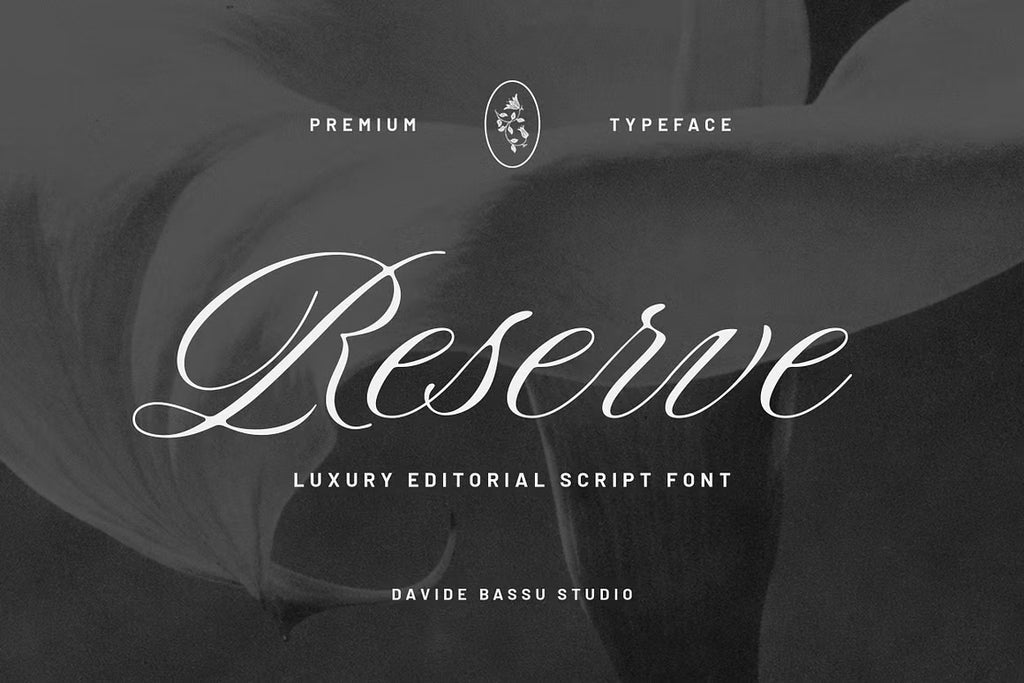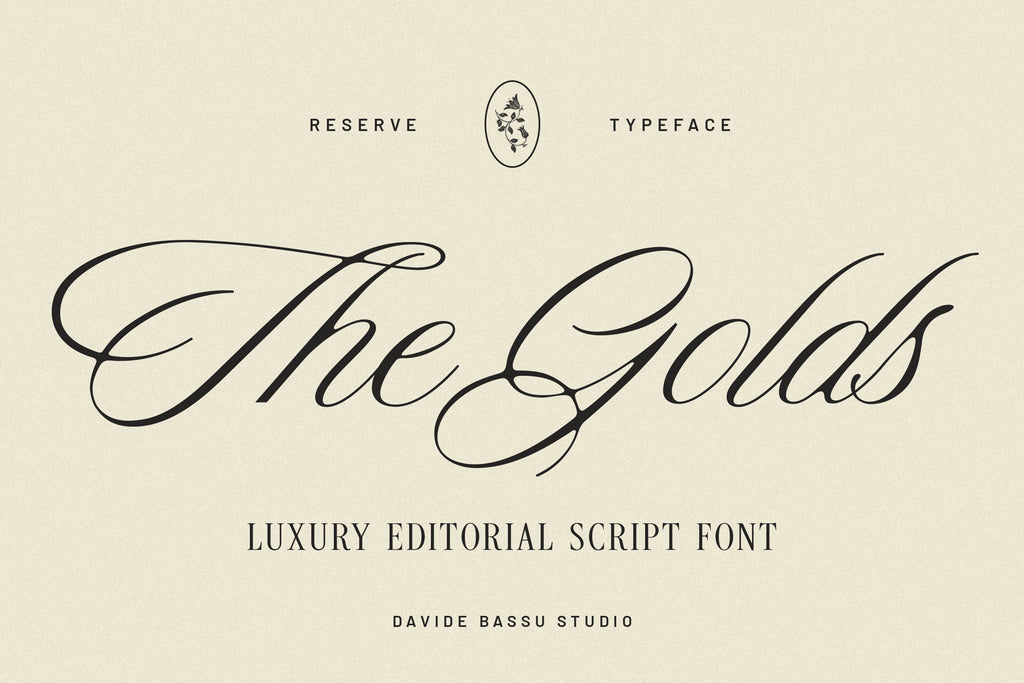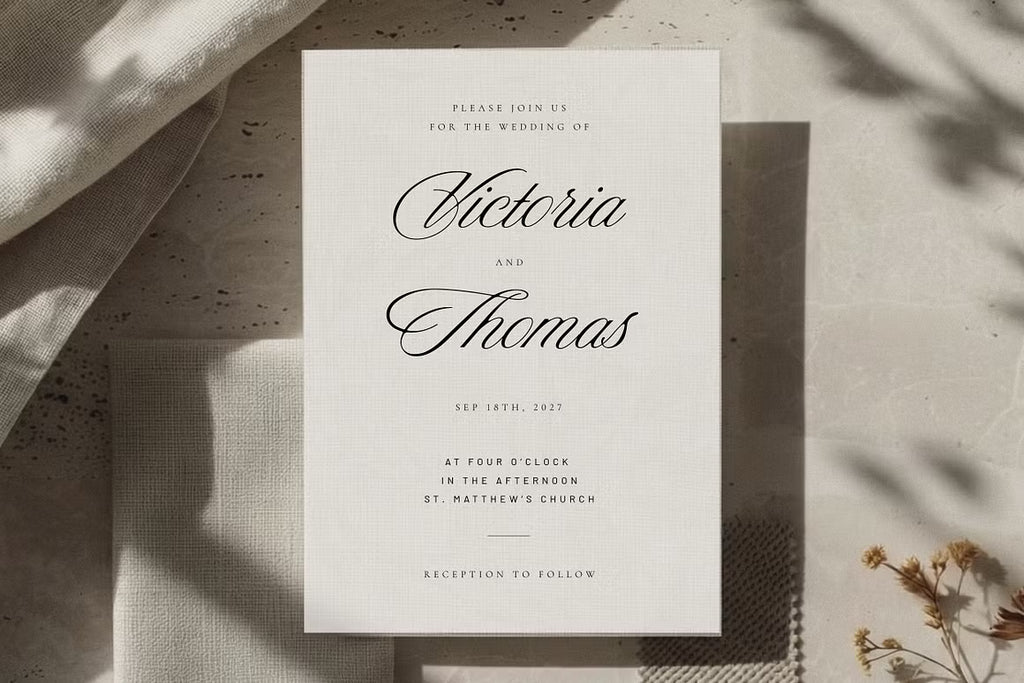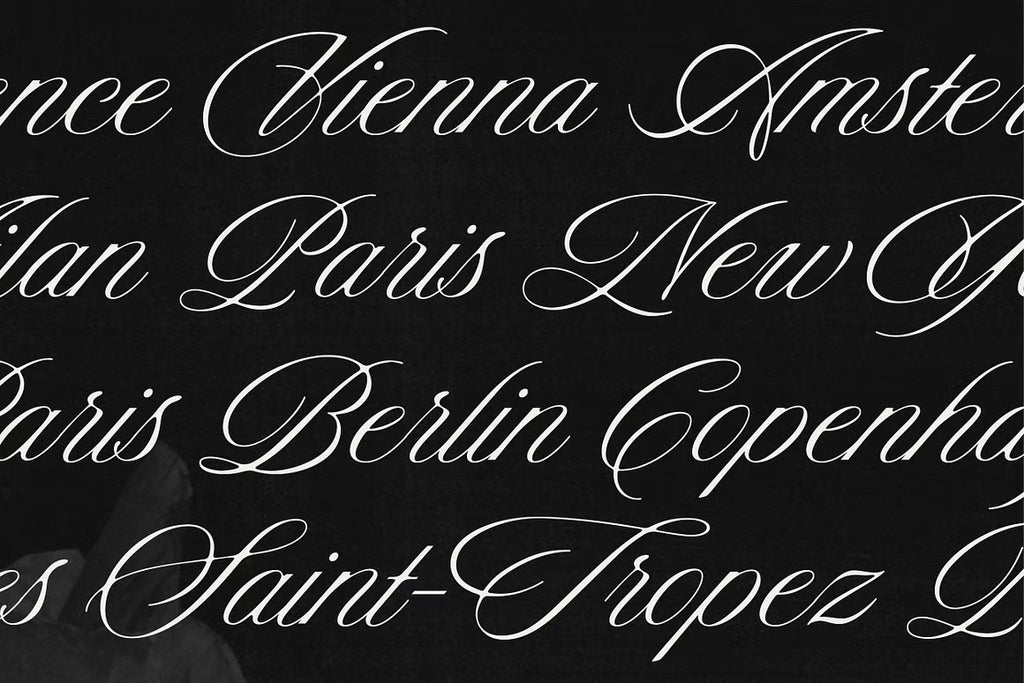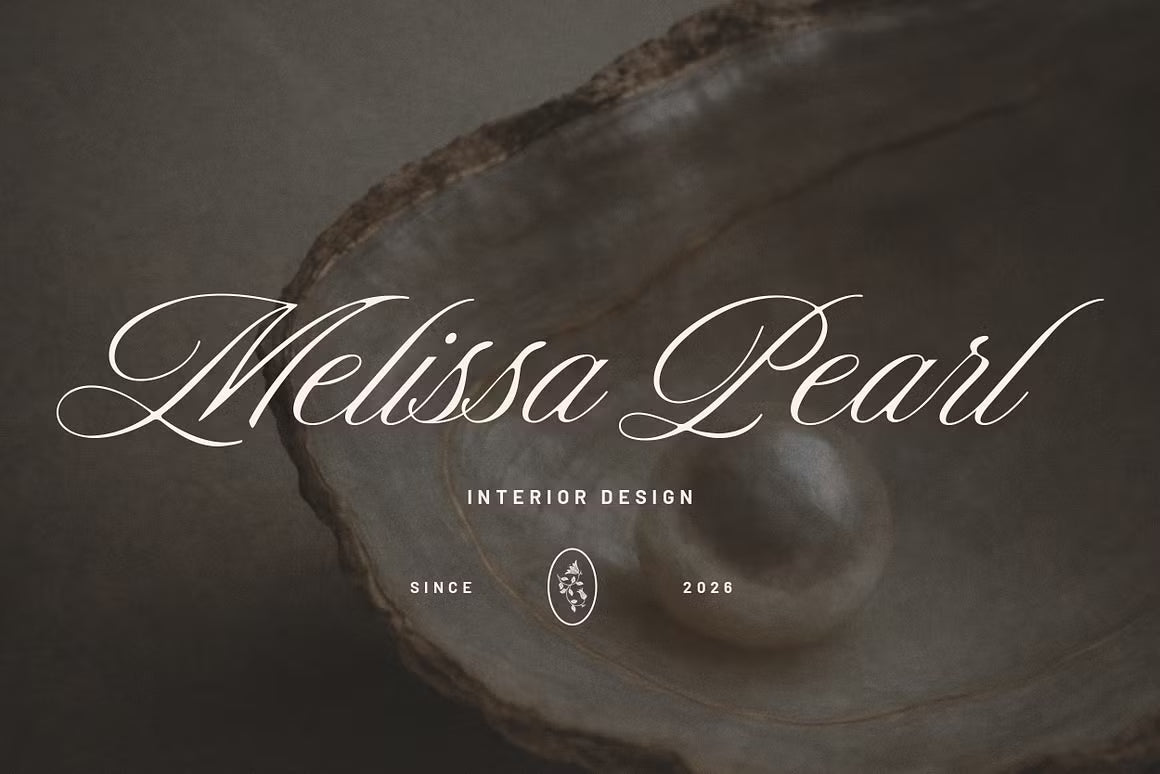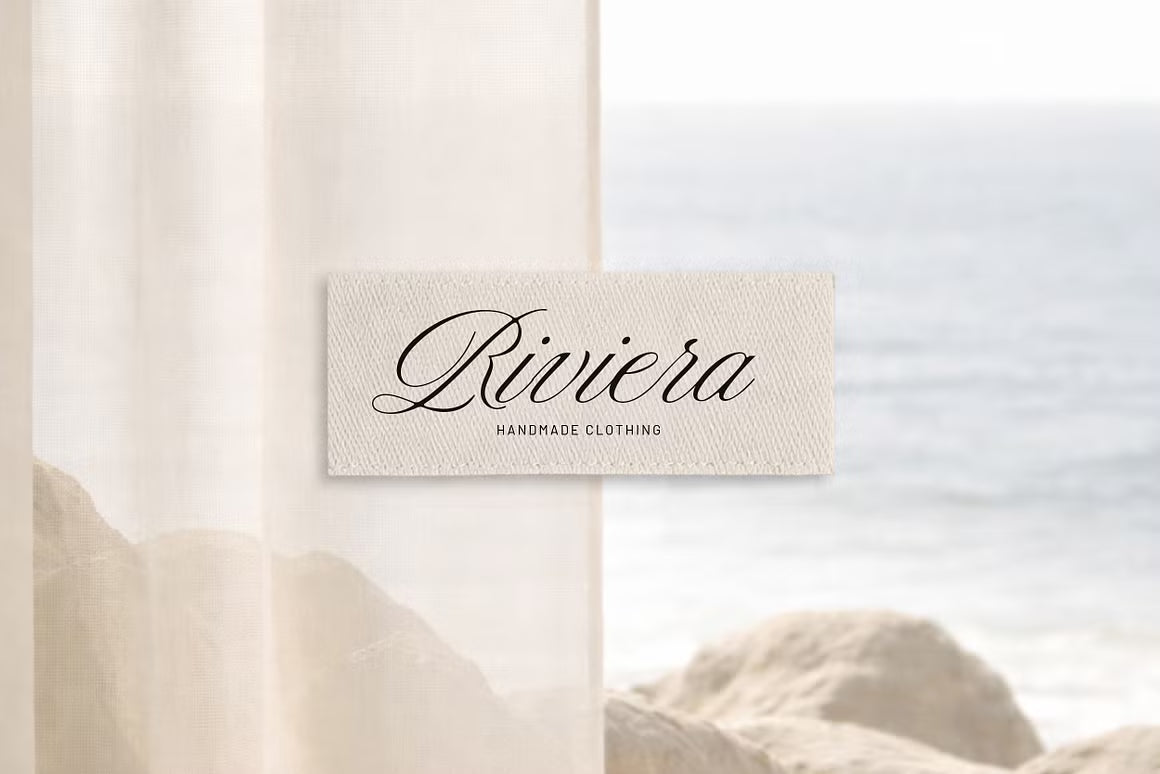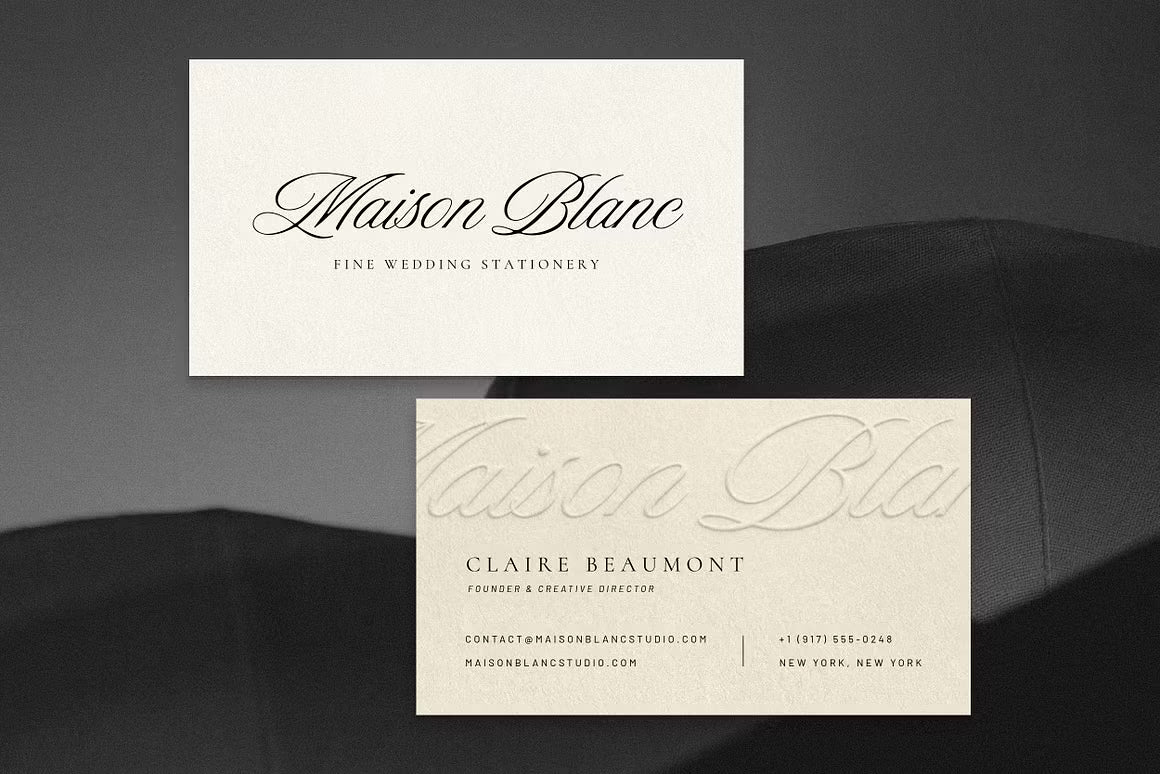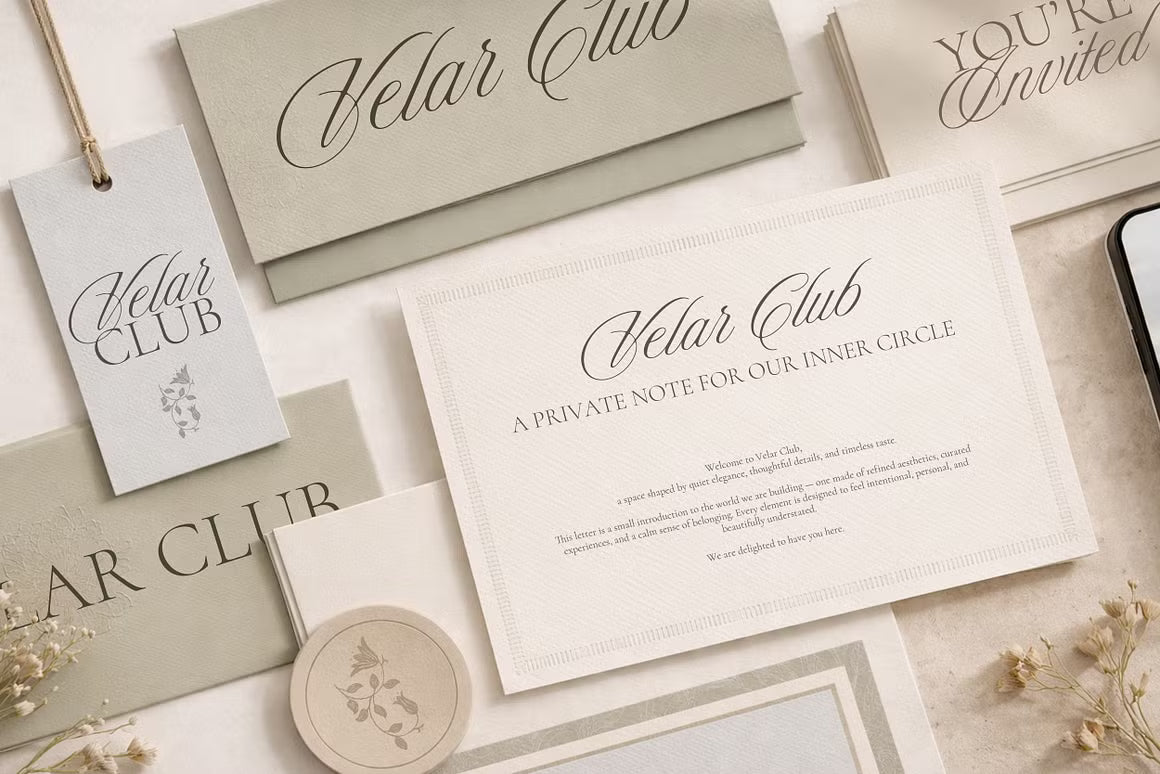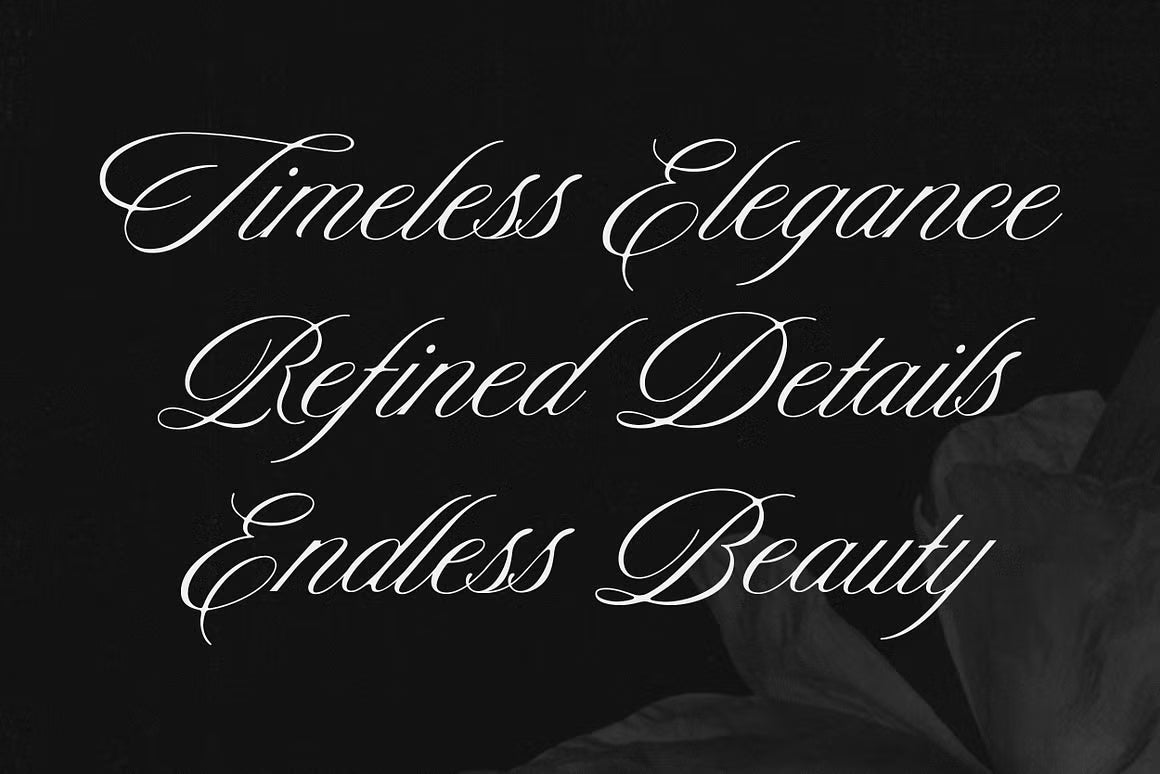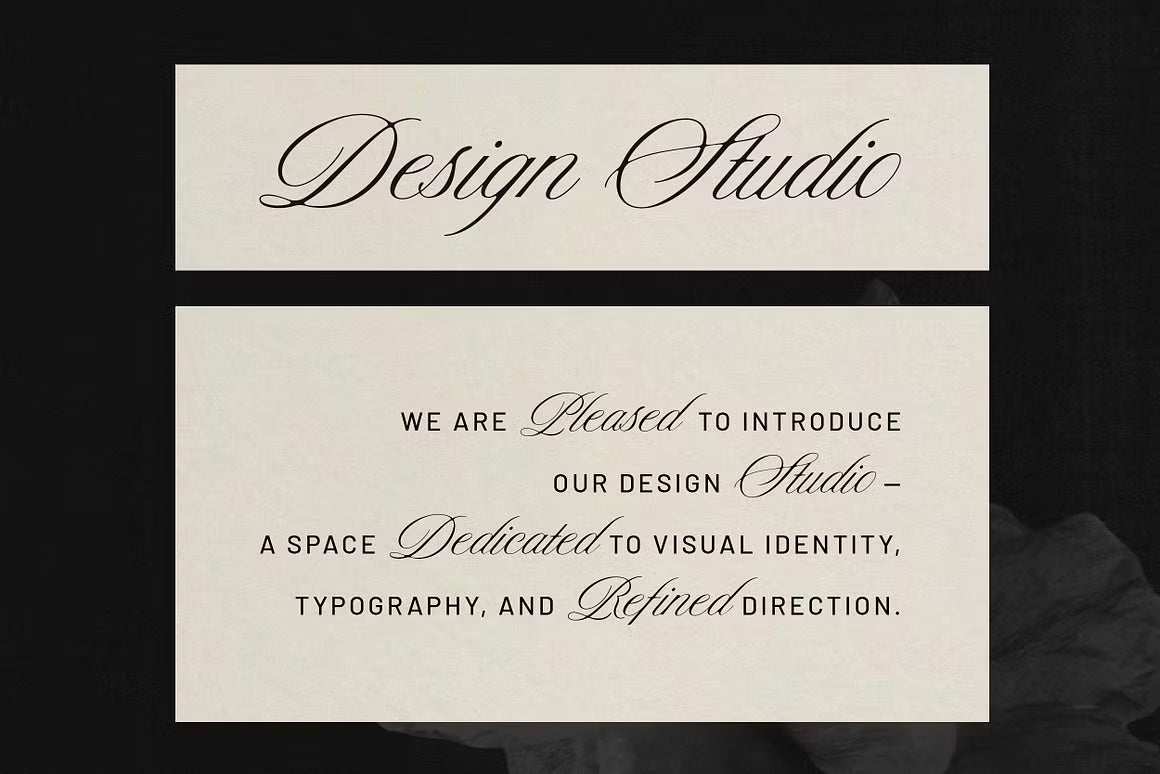
Reserve Std
Reserve – Luxury Script Font is a refined and balanced script that sits gracefully between softness and structure. With flowing strokes, subtle contrast, and elegant details, it brings a sense of quiet sophistication and editorial polish to your designs.
It’s particularly suited for wedding stationery, high-end branding, product labels, packaging, and social content where you want the typography to feel intentional, timeless, and just a little romantic. The letterforms are expressive enough to stand out, yet controlled enough to remain highly readable and versatile.
A graceful script that adds refinement without ever feeling overdone.
Reserve - Luxury Script Font